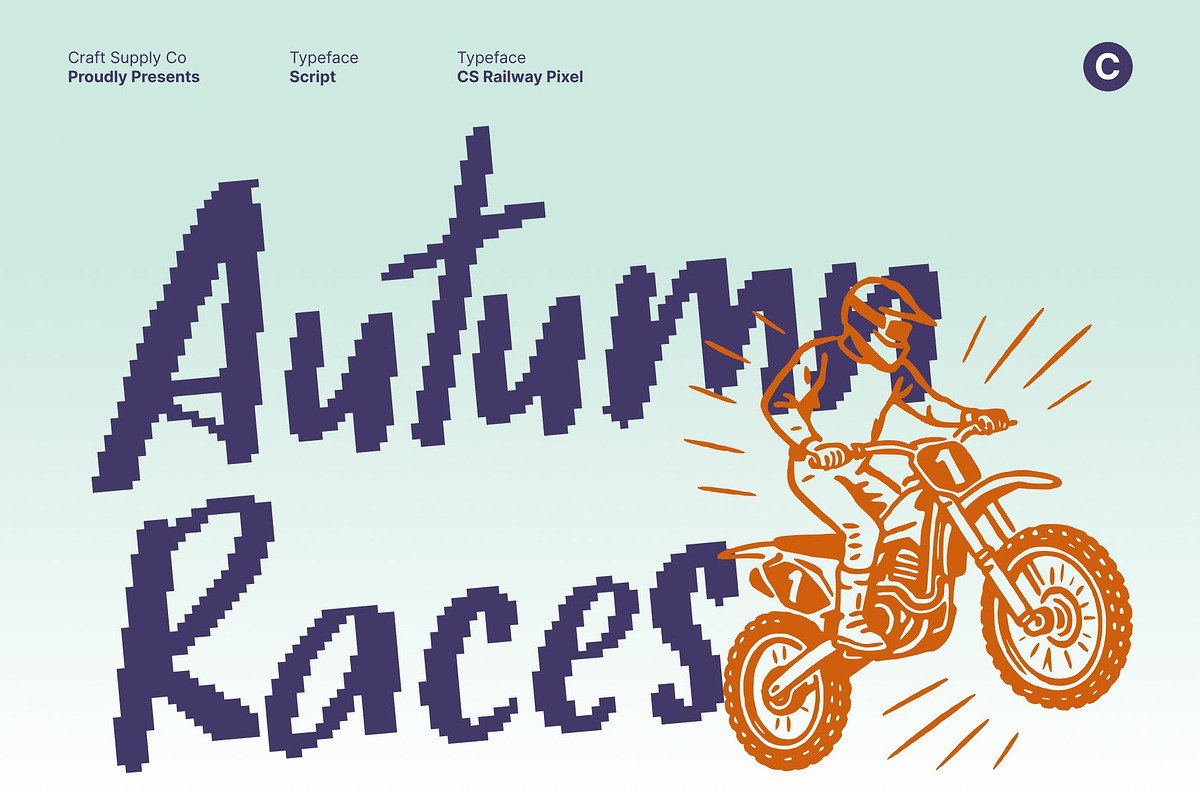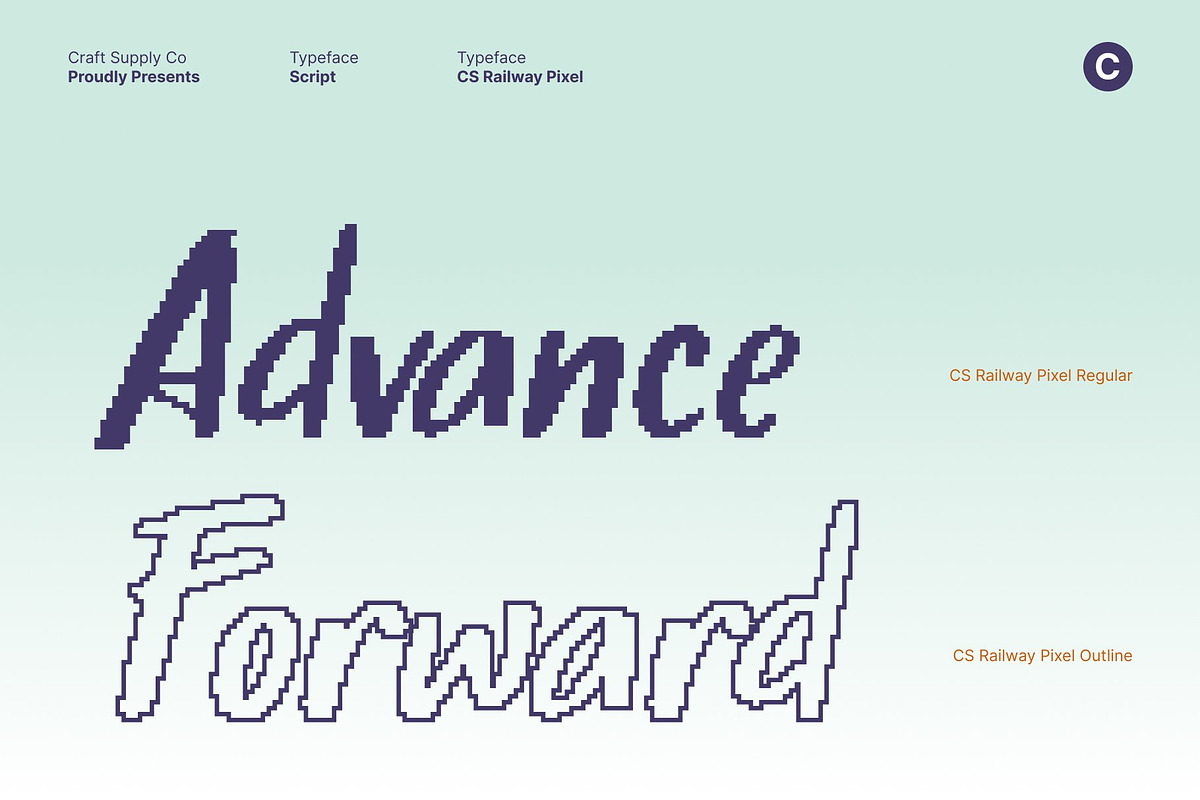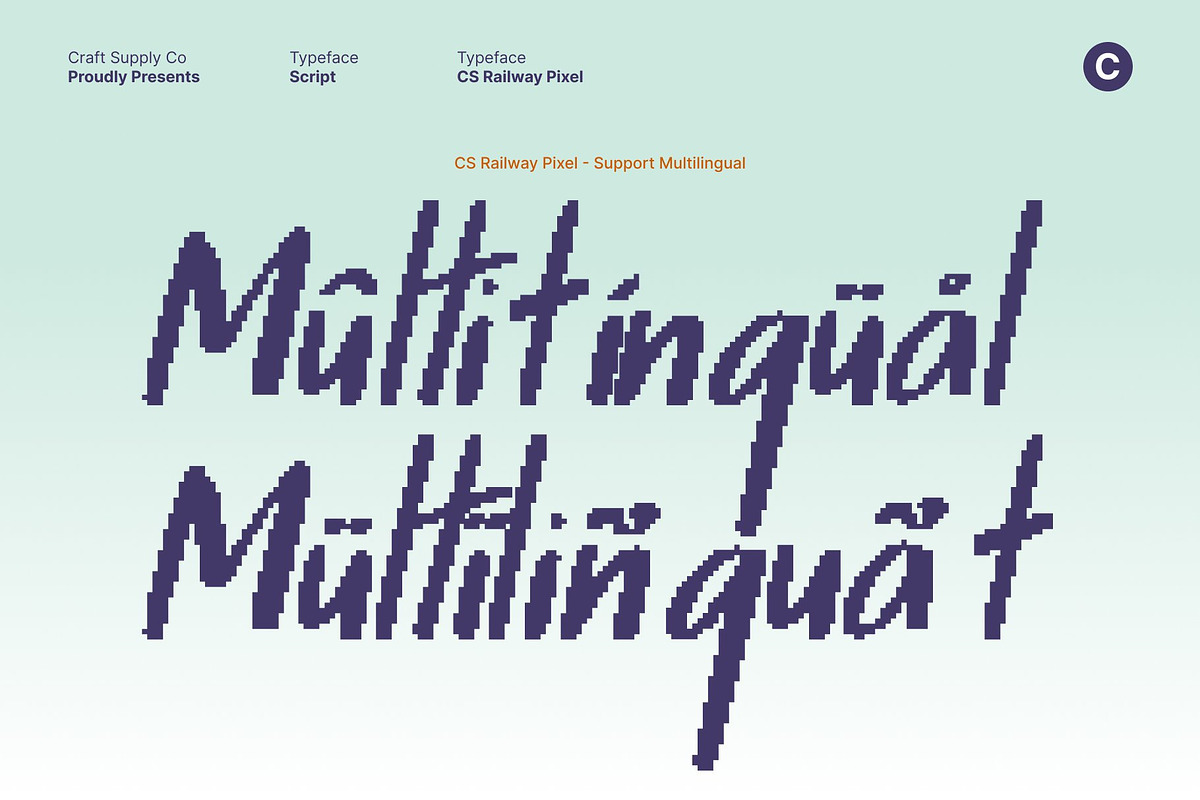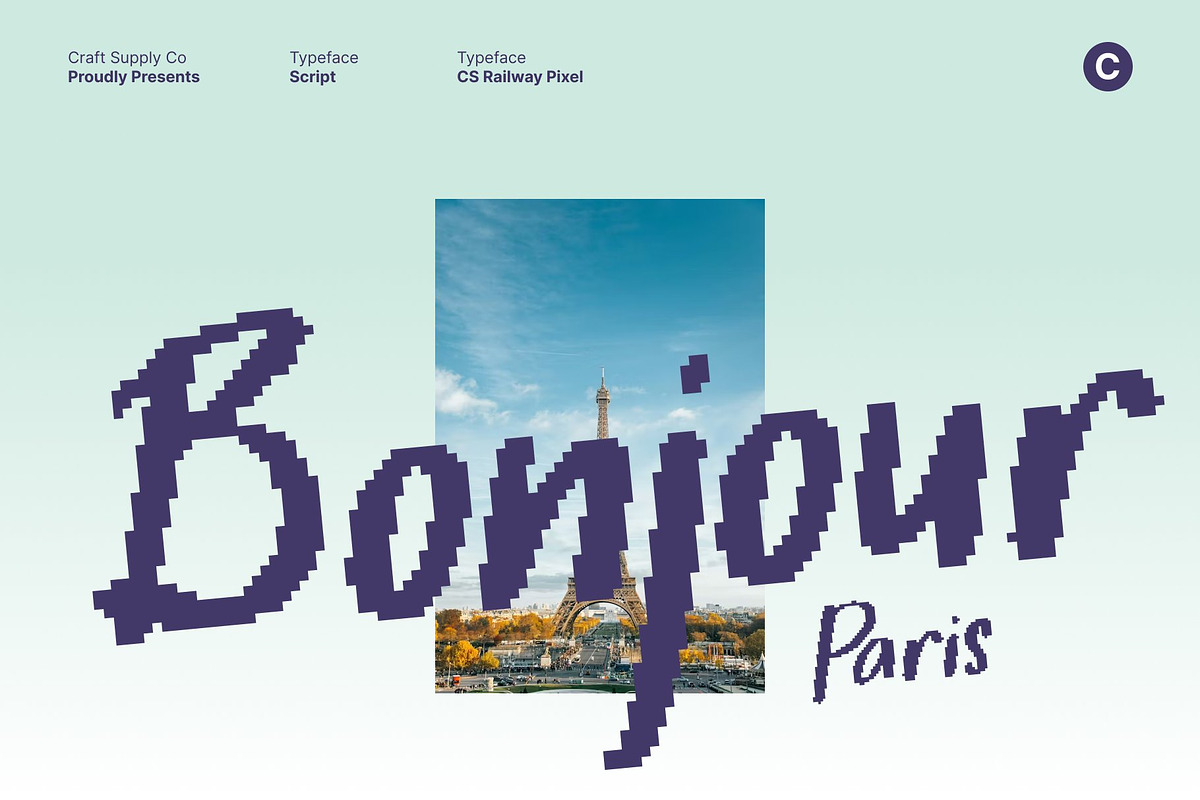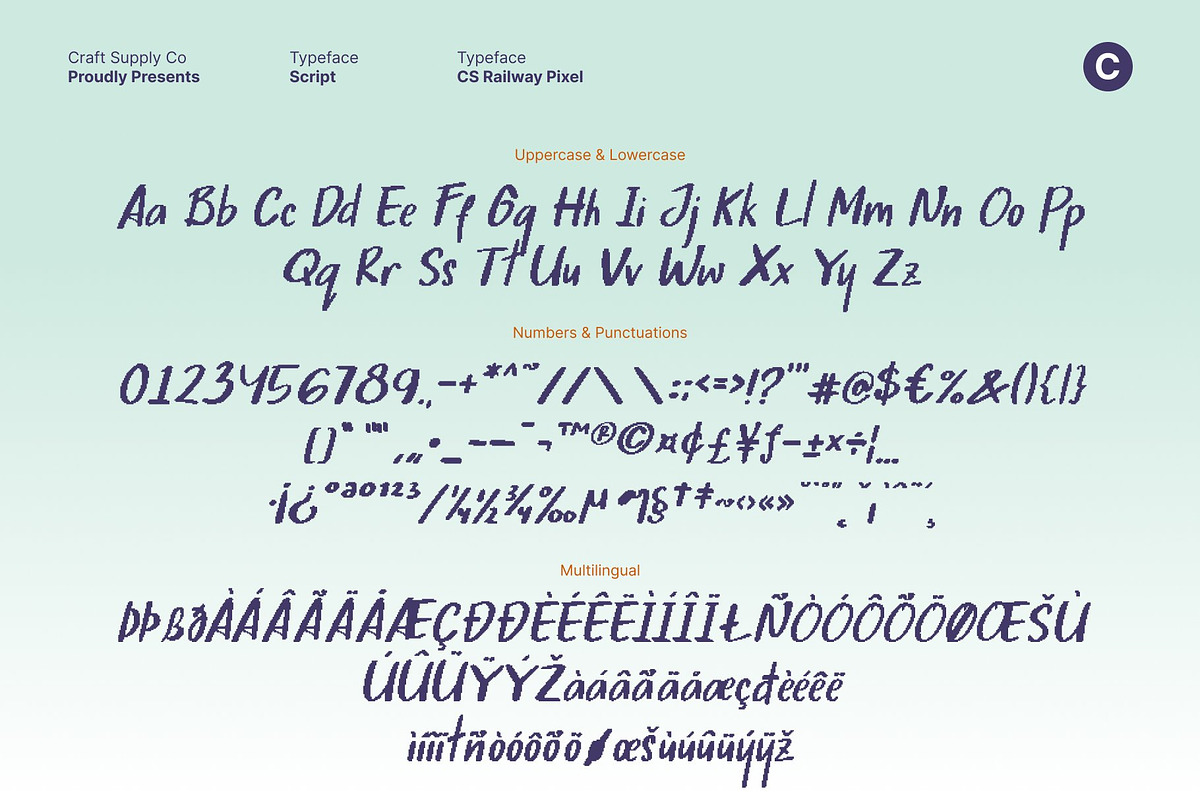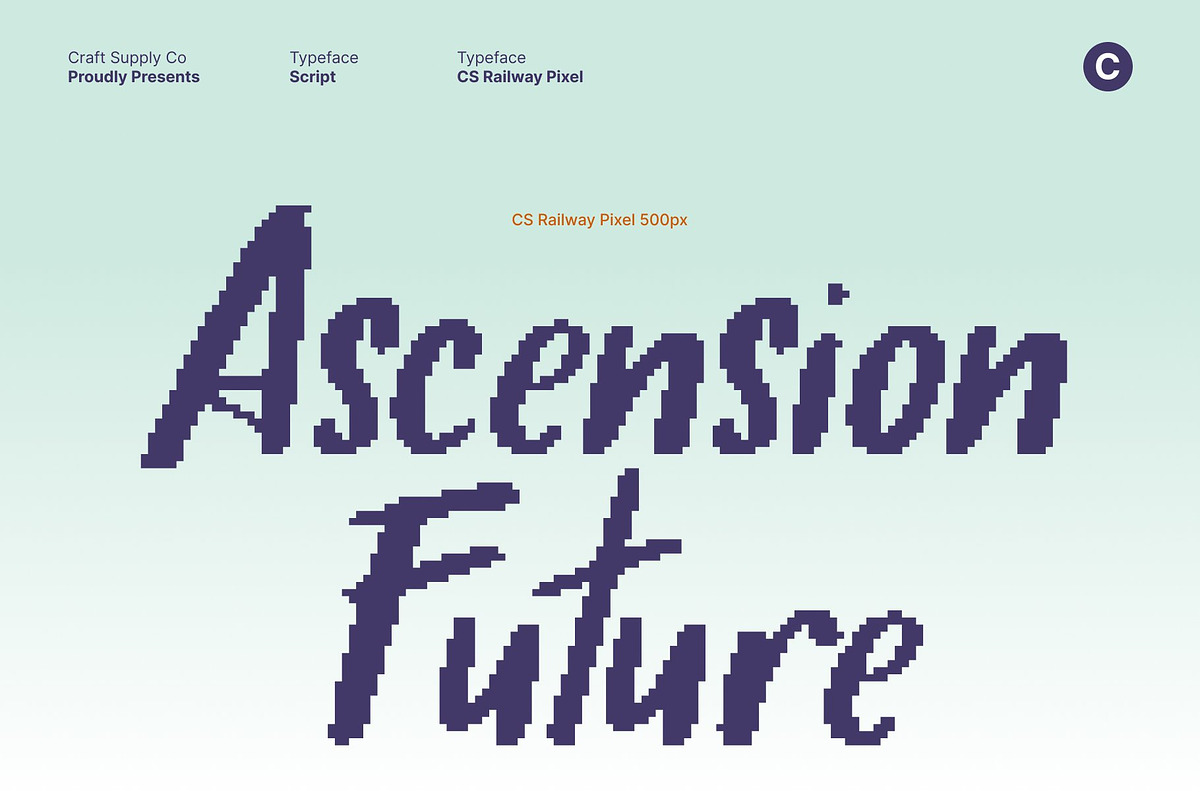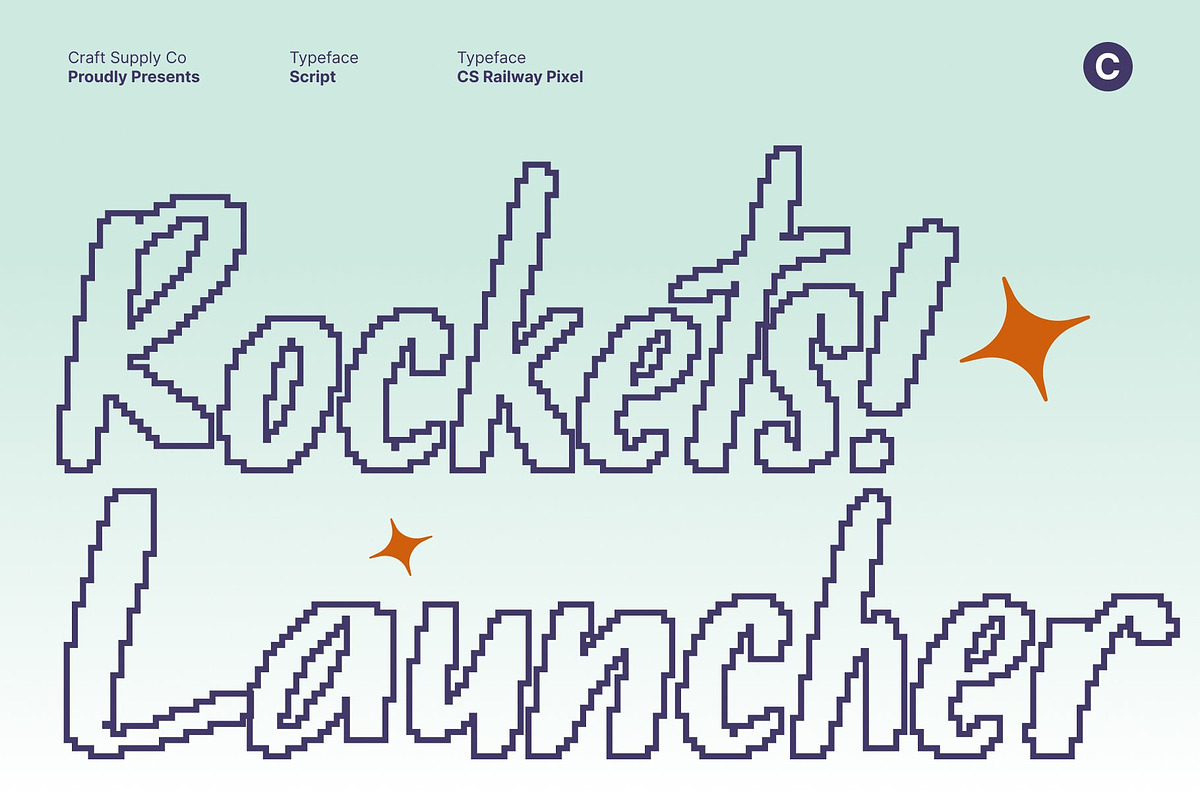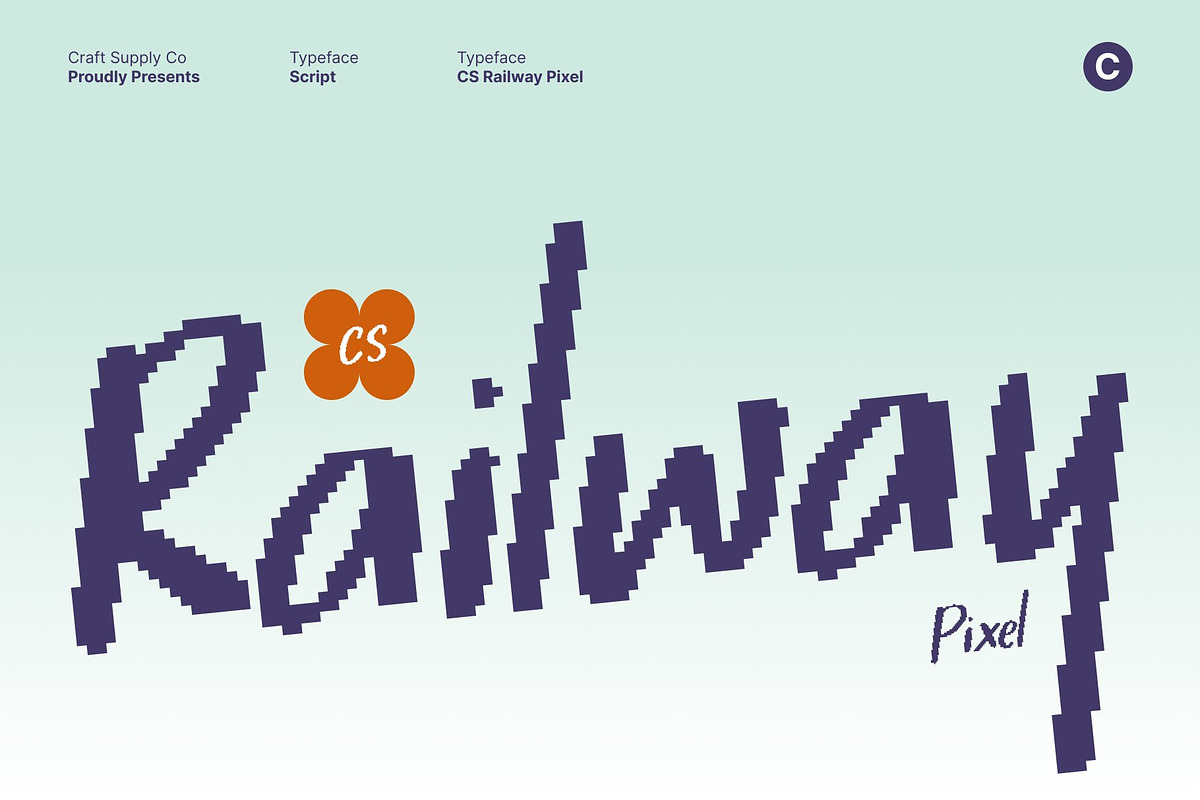
CS Railway Pixel
CS Railway Pixel – Natural Marker Sans Serif with Expressive Handwritten Energy
Authentic Marker Style with Handwritten Personality This is a marker-style sans serif font that captures the spontaneity and warmth of natural handwriting. Its fluid strokes emulate soft marker lettering, creating an organic and expressive appearance that feels personal, approachable, and full of character.
Clean Sans Serif Foundation with Handmade Texture Built on a polished sans serif structure, this font blends clarity with handcrafted charm. Rounded edges and balanced proportions ensure readability, while subtle handwritten variations add texture and life to every character striking a perfect balance between neatness and creativity.
Expressive Typography for Editorial, Branding, and Digital Design The natural marker texture allows this font to shine in editorial layouts, branding identities, and digital content. Its expressive letterforms bring warmth and personality to headlines, quotes, subheadings, and social media graphics, making designs feel engaging and human.
Perfect for Creative, Casual, and Character-Driven Projects Designed for creatives who value authenticity, this font adapts effortlessly across playful, artistic, and relaxed professional contexts. Ideal for packaging, posters, lifestyle visuals, and creative branding, it delivers a handwritten energy that feels natural, stylish, and contemporary.